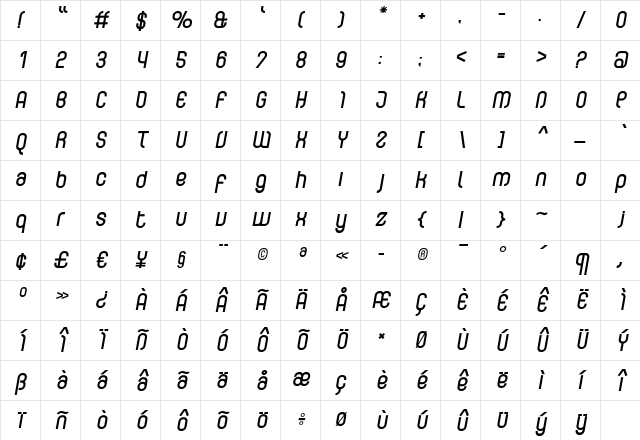
CurvatureBold Italic Regular
Design Context for CurvatureBold Italic
CurvatureBold Italic is a composed and adaptable typeface that performs quietly and consistently across a wide range of design contexts. The slanted form adds forward momentum and visual energy. Its bold stroke weight gives it real presence on the page.